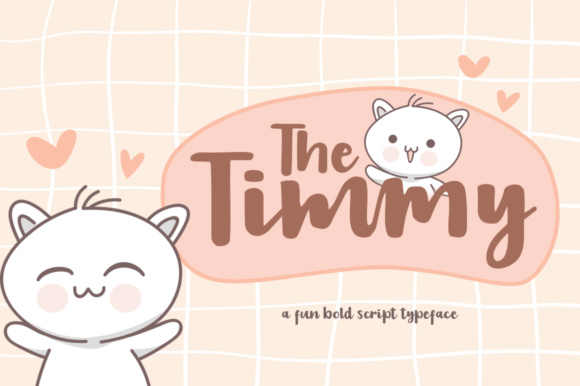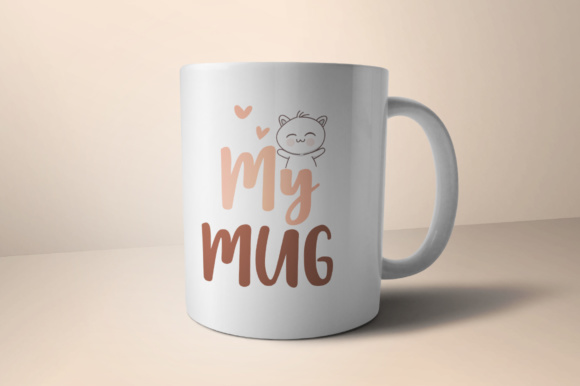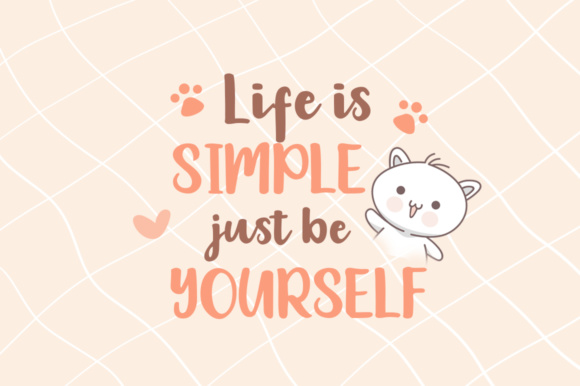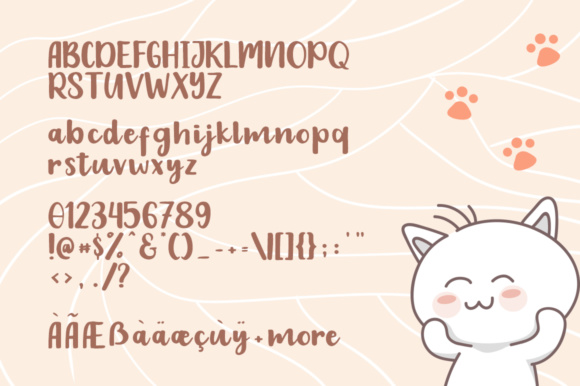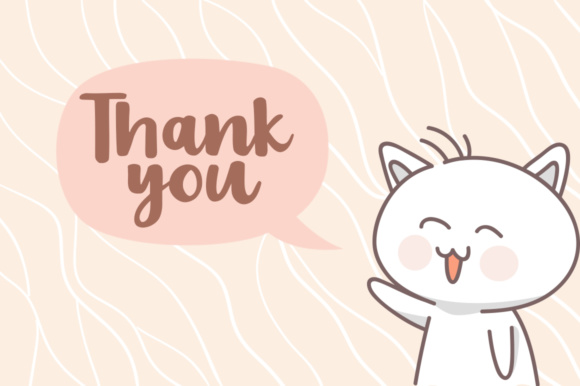
The Timmy Font
About The Timmy Font
The Timmy is a fun, bold script typeface that will give a cheeriness to your work! This font is suitable for a wide range of projects, and projects warmth and fun with its bouncy baseline and handwritten appeal.